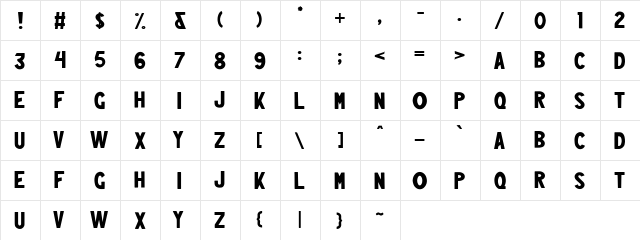
Lesjam Demo Regular
| Foundry | Garisman Studio |
| Designer | Risman Ginarwan |
Design Context for Lesjam Demo Typeface
Lesjam Demo is a composed and adaptable typeface that performs quietly and consistently across a wide range of design contexts.